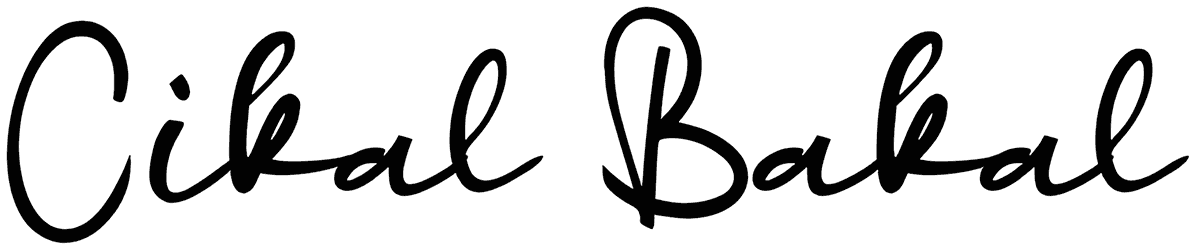
c Cikal Bakal Font
When you look at the C Cikal Bakal font, its stunning design grabs your attention. This script font sends you a pleasant vibe and can help you in several situations.
For instance, you can use it on business cards, postcards, and magazine covers. This handwritten font’s letters have rounded edges with a curvy shape, creating a cute style. Moreover, their thin tails will remain in mind, so download this awesome font now to impress your audience.